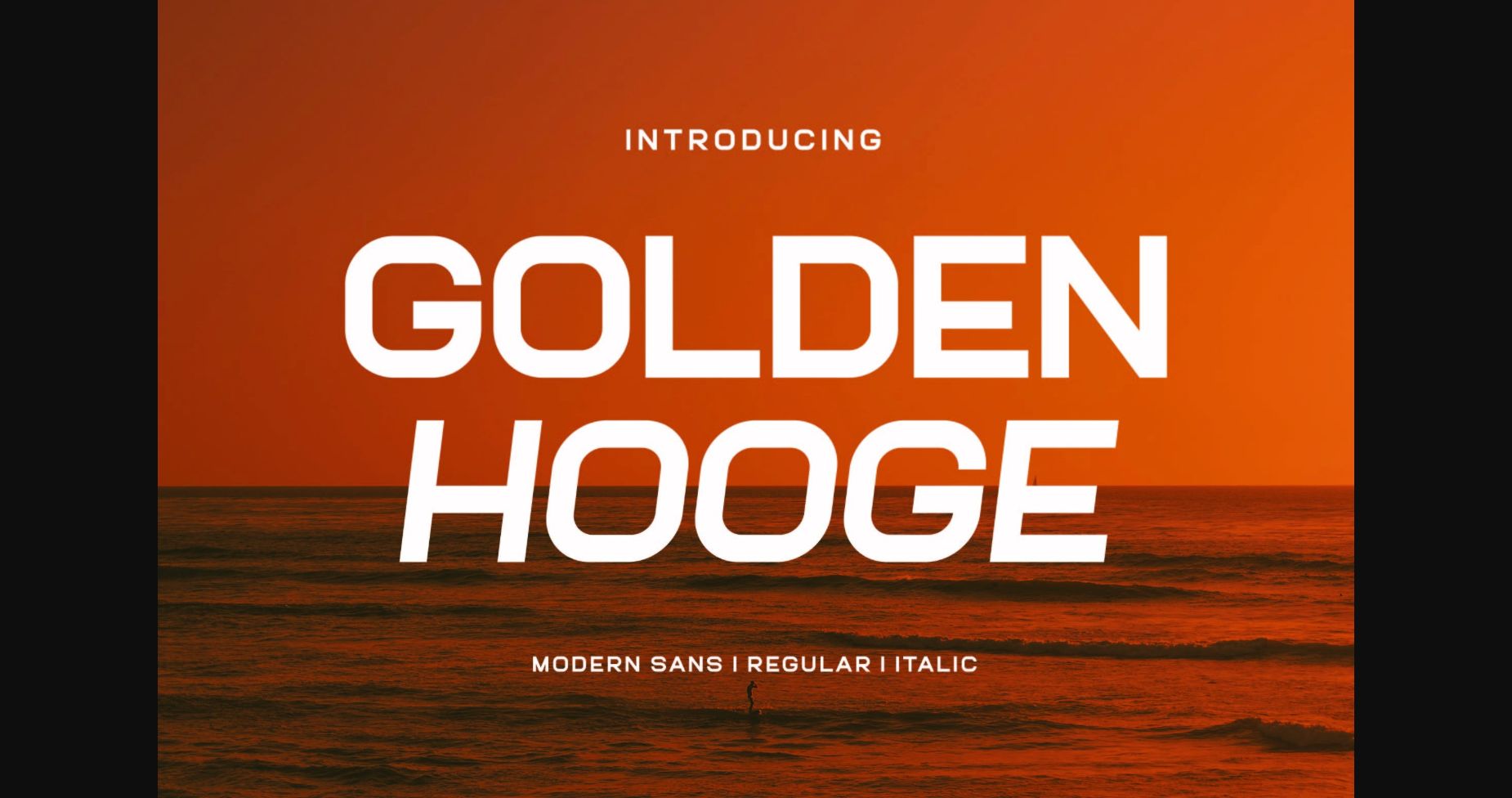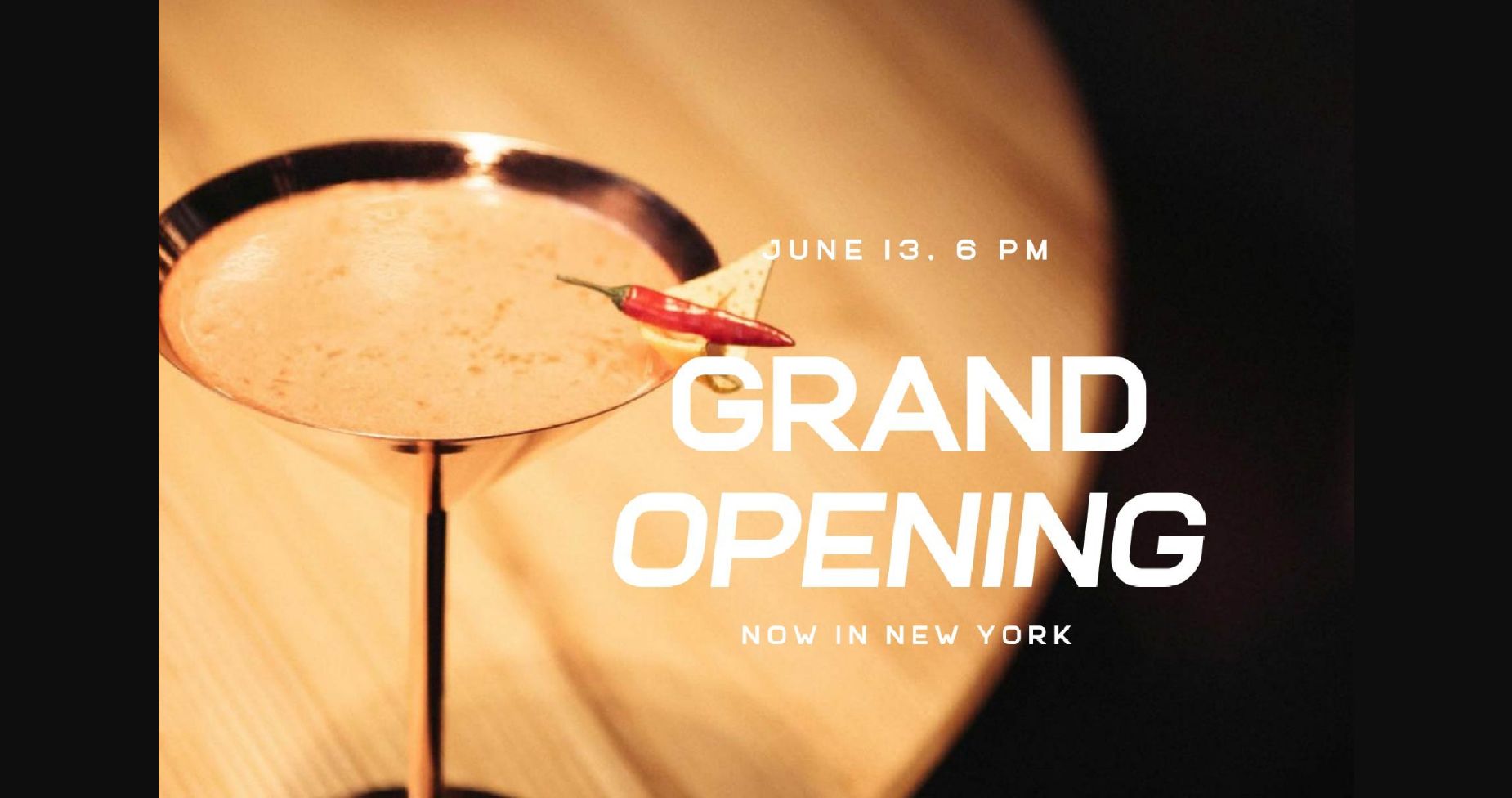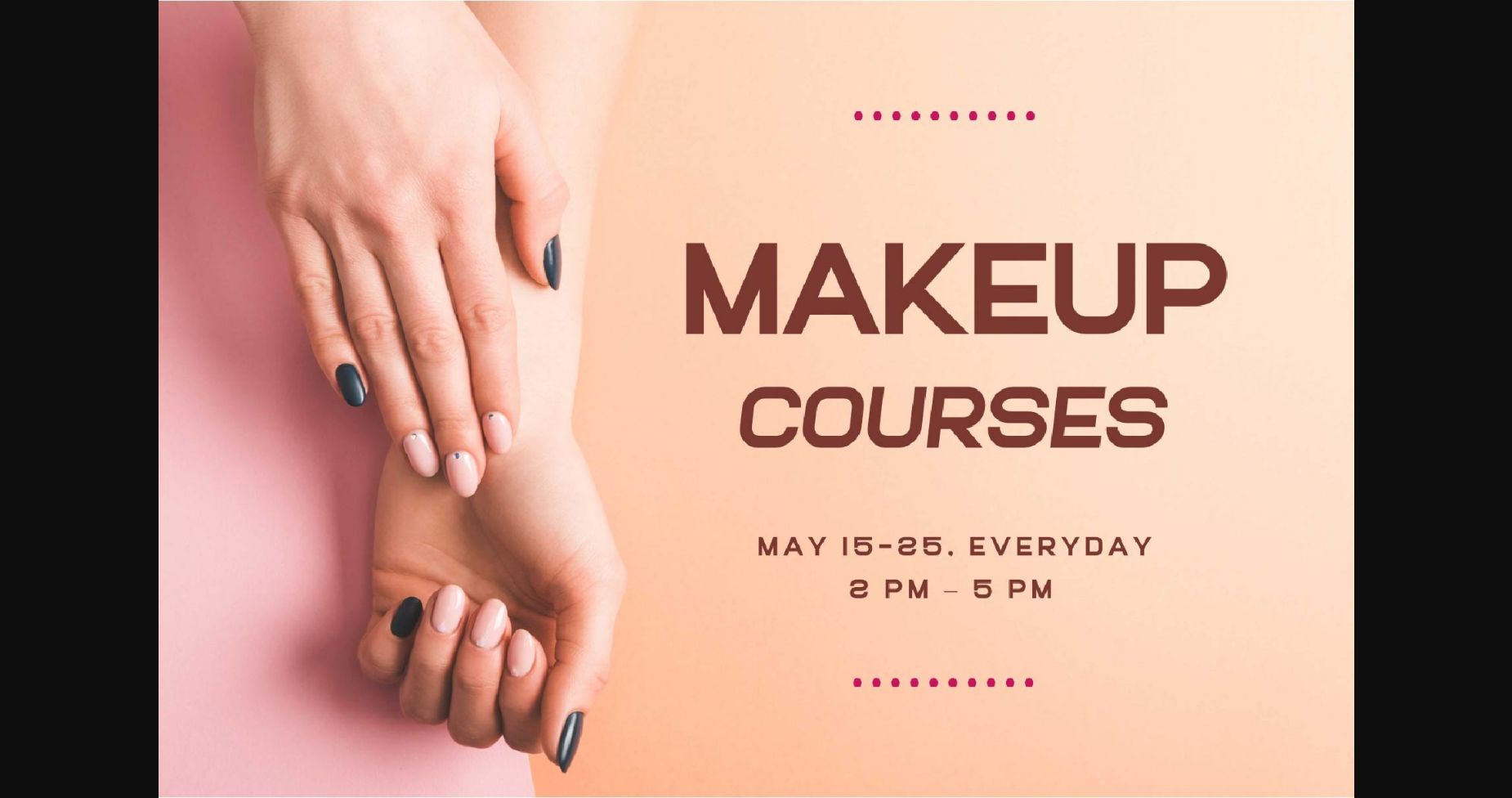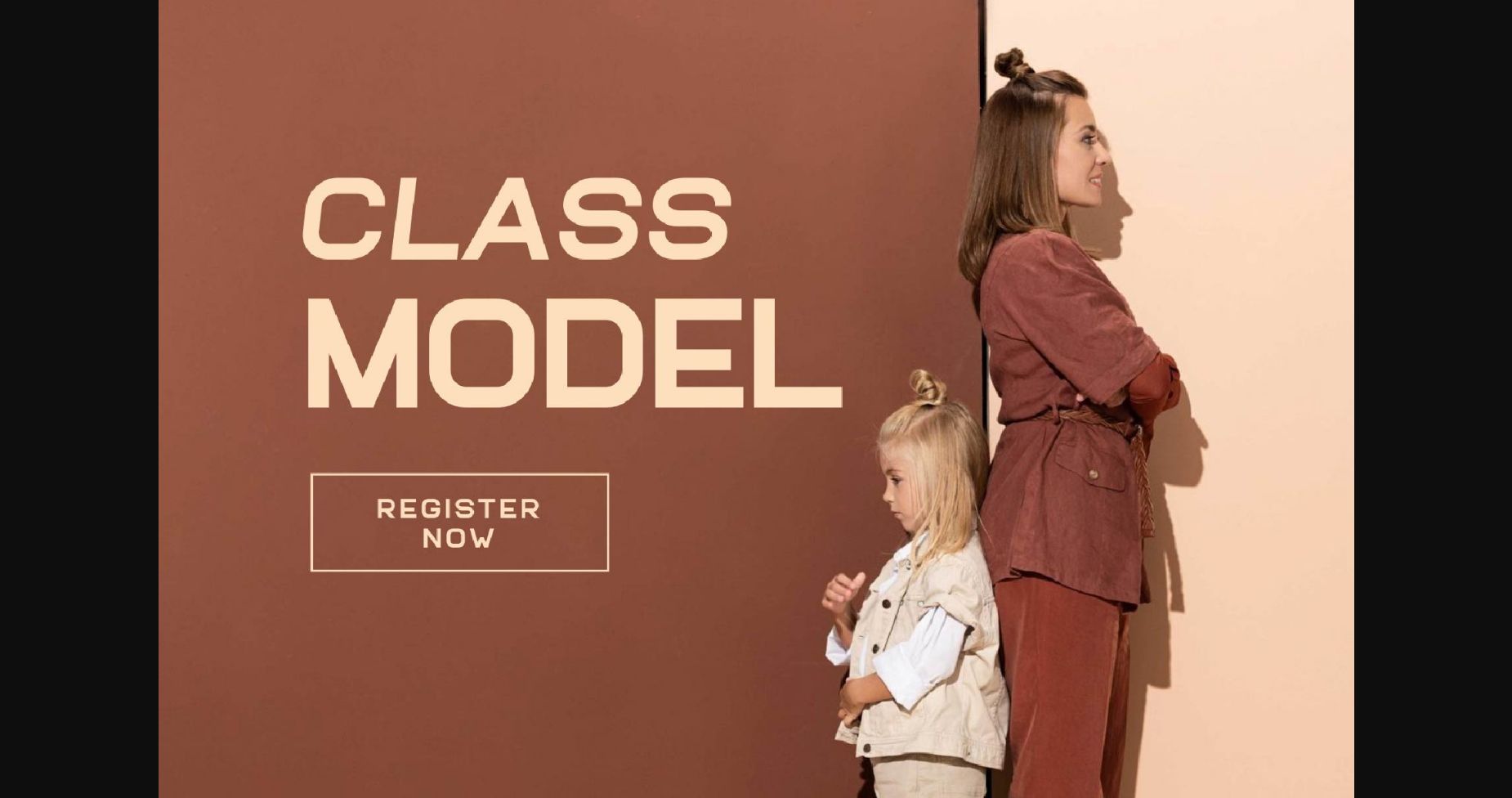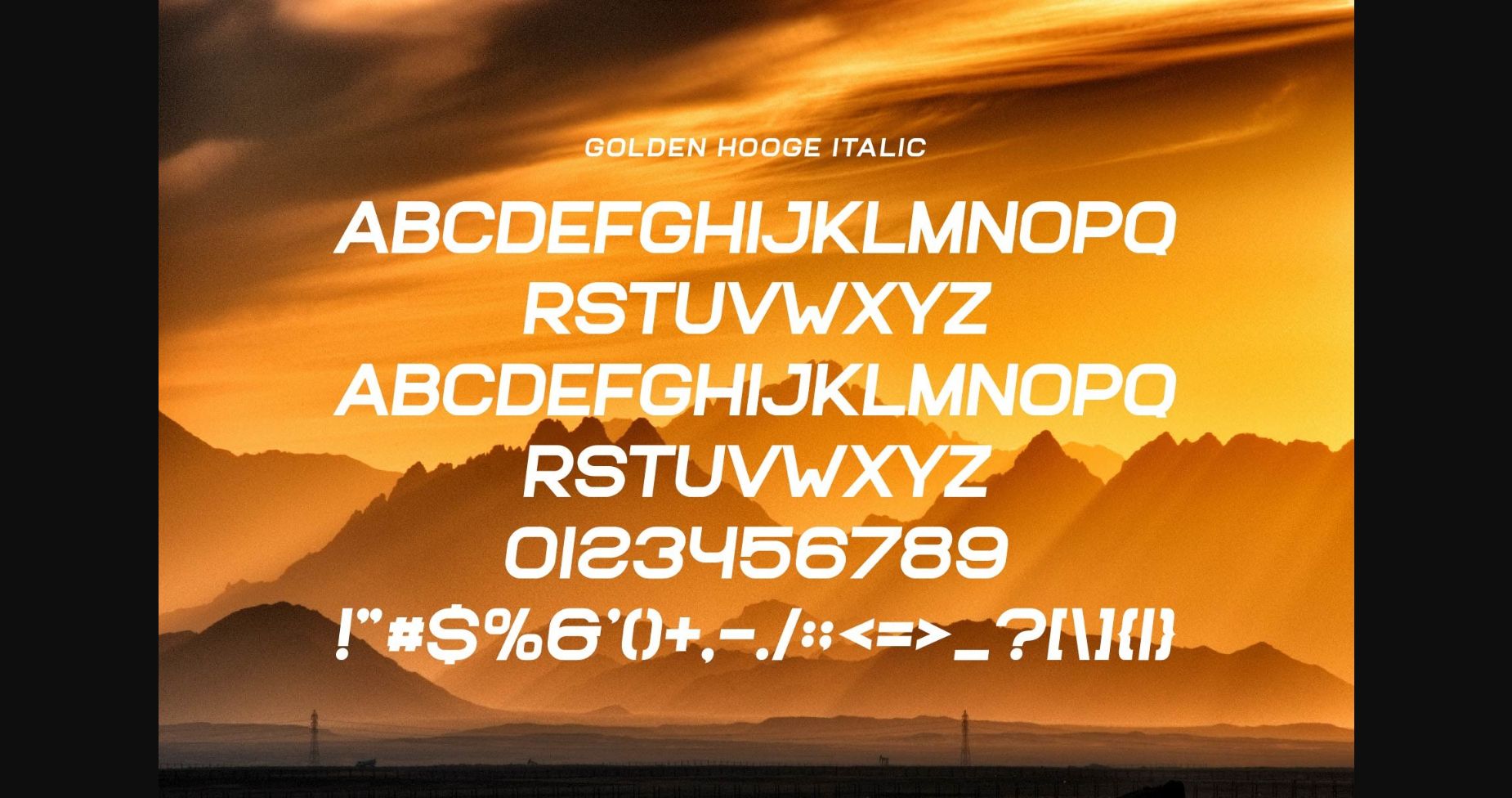
About Golden Hooge Font
Golden Hooge Sans Font Typeface inspired by the famous minimalist logo perfect for the purposes of designing templates, brochures, videos, advertising branding, logos, invitation, layout design, elegant crafting, beauty design, and others.